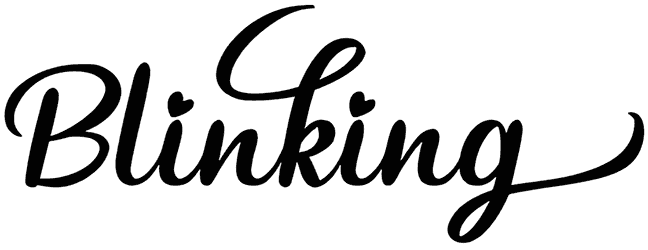
Blinking Font
If you are in the mood for adding a fresh breath to all of your creative ideas, we would like to introduce a magical heart font, such as Blinking, to you.
This lovely masterpiece can bring your graphic projects, including applications, the user interface of web pages, headings, or social media posts, to a higher level of quality. Don’t forget this golden point that it leads to a sense of dreaminess, jauntiness, vivacity, or viability.